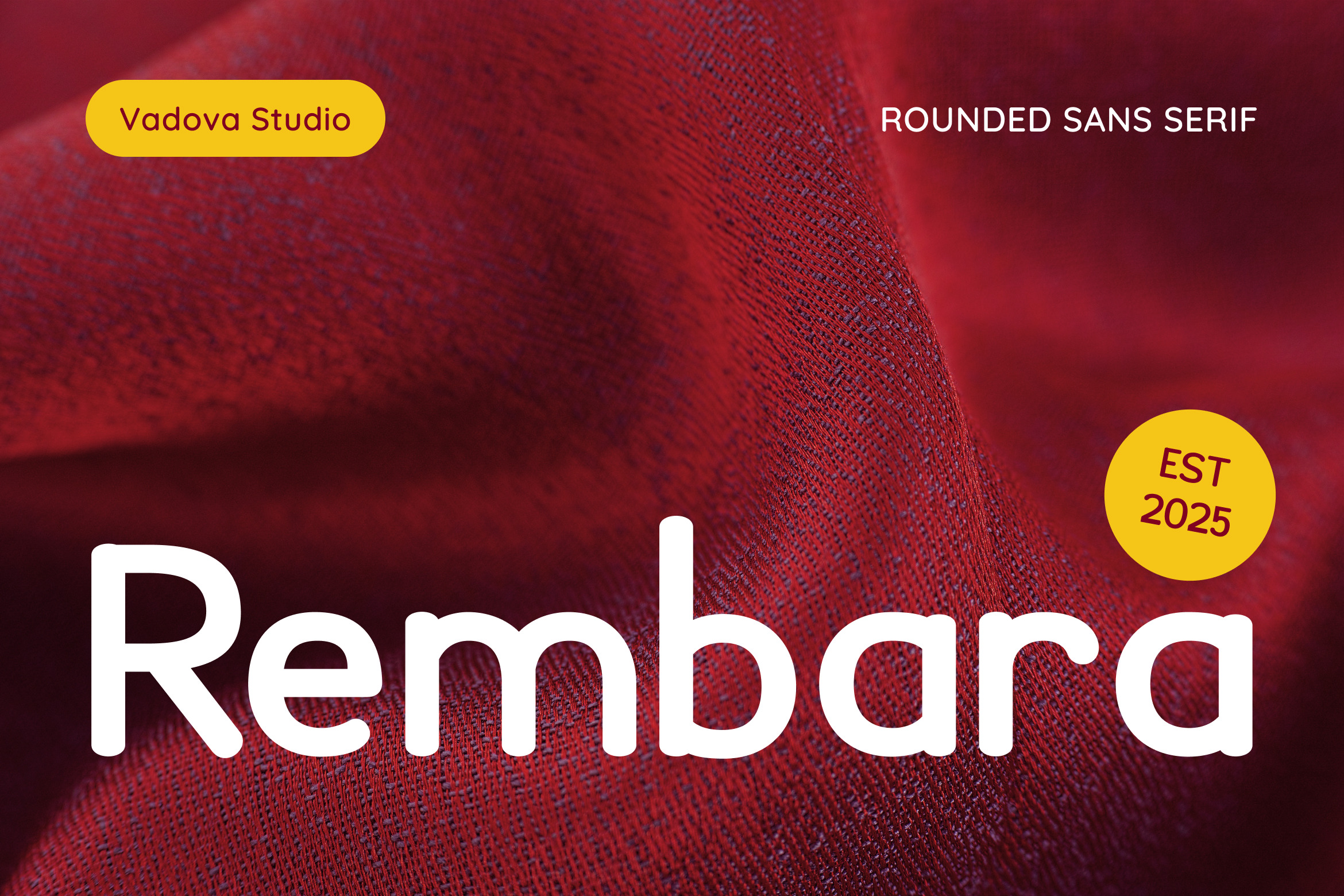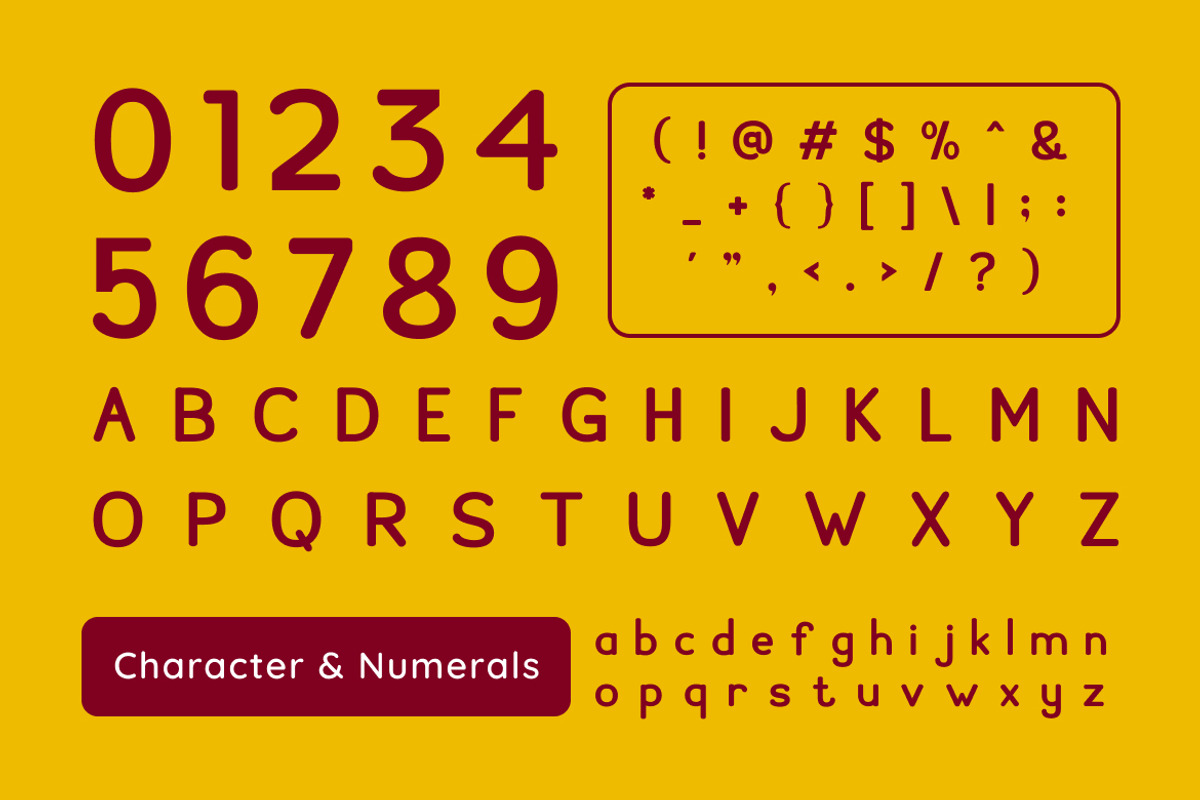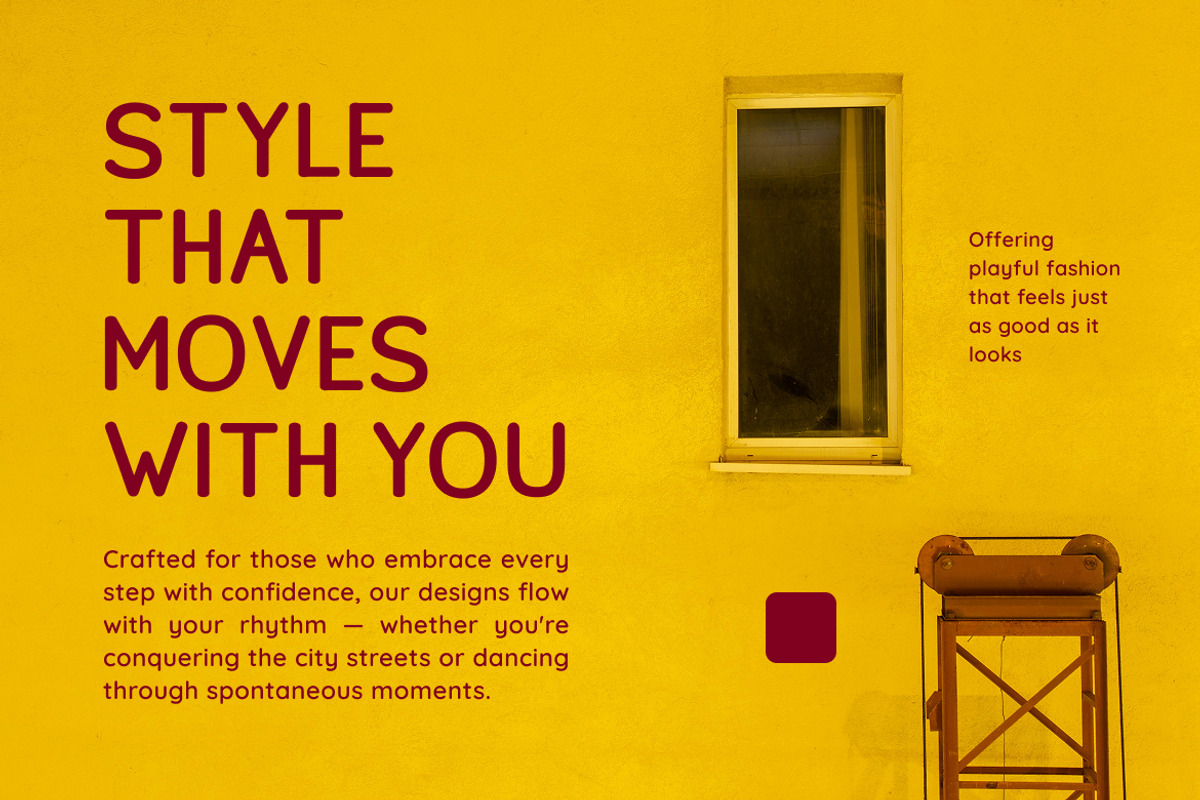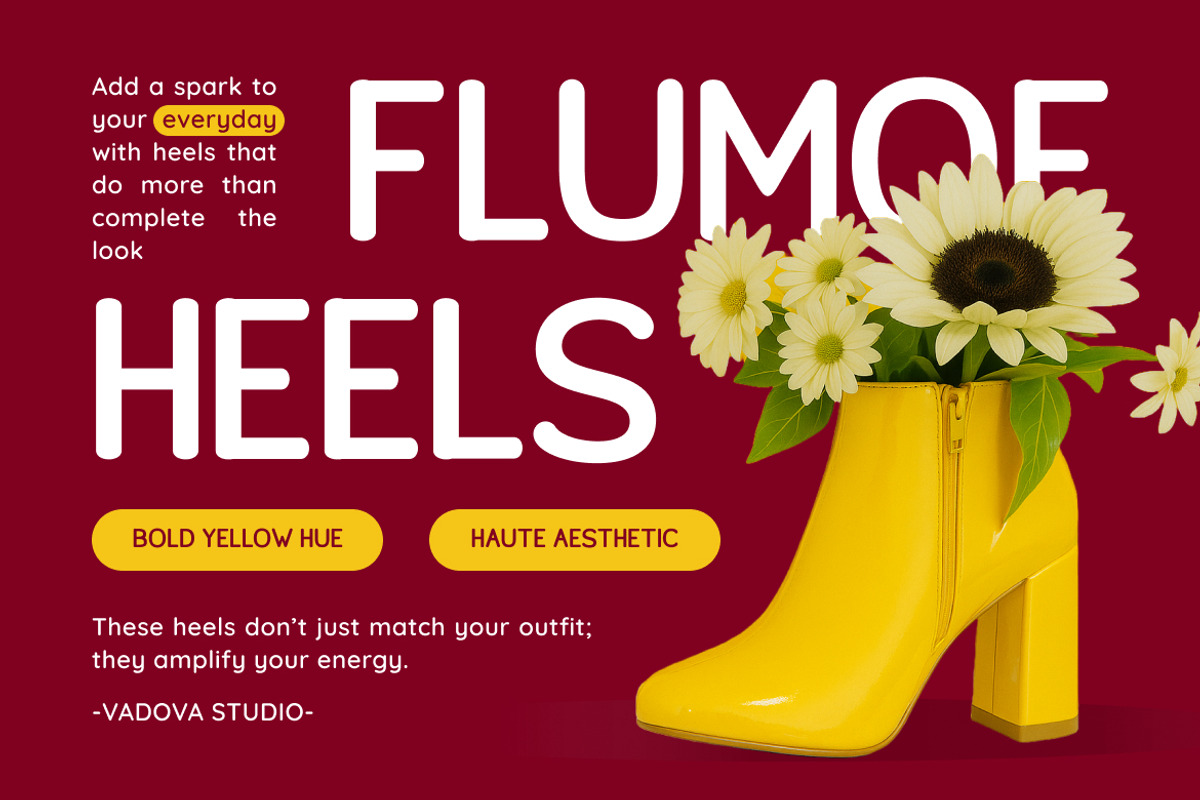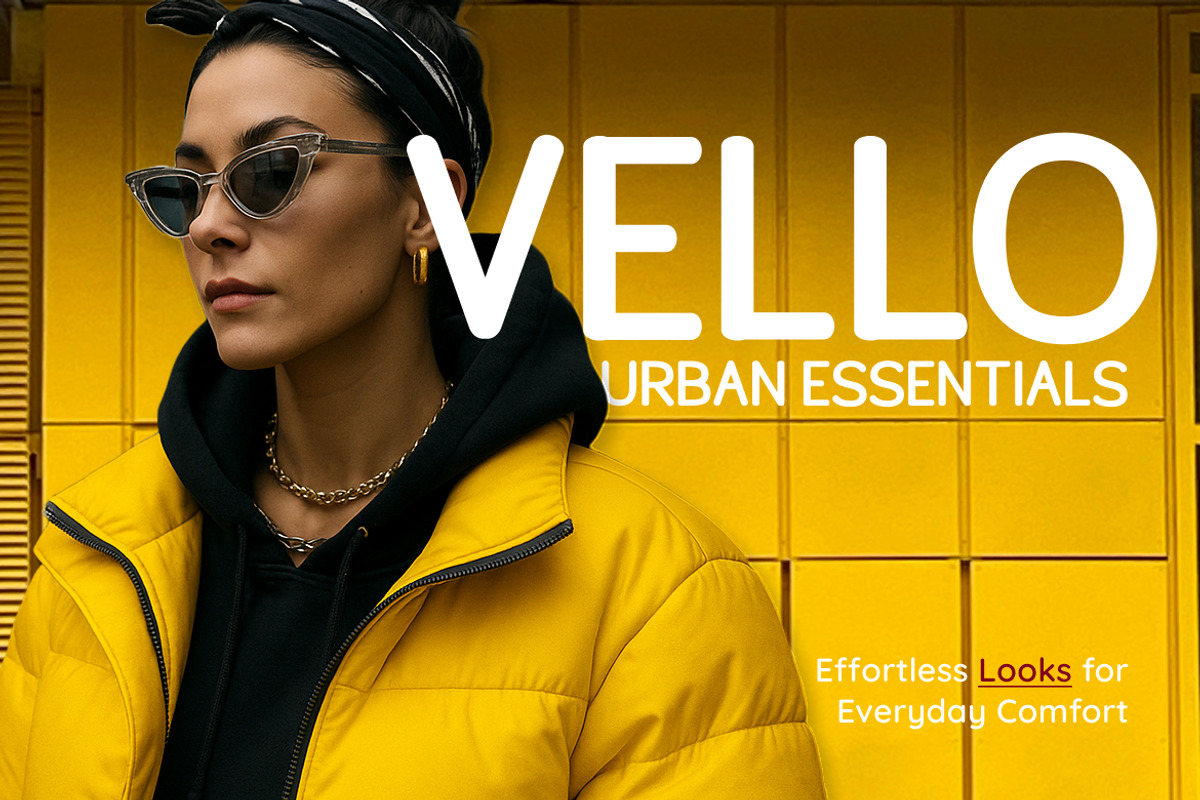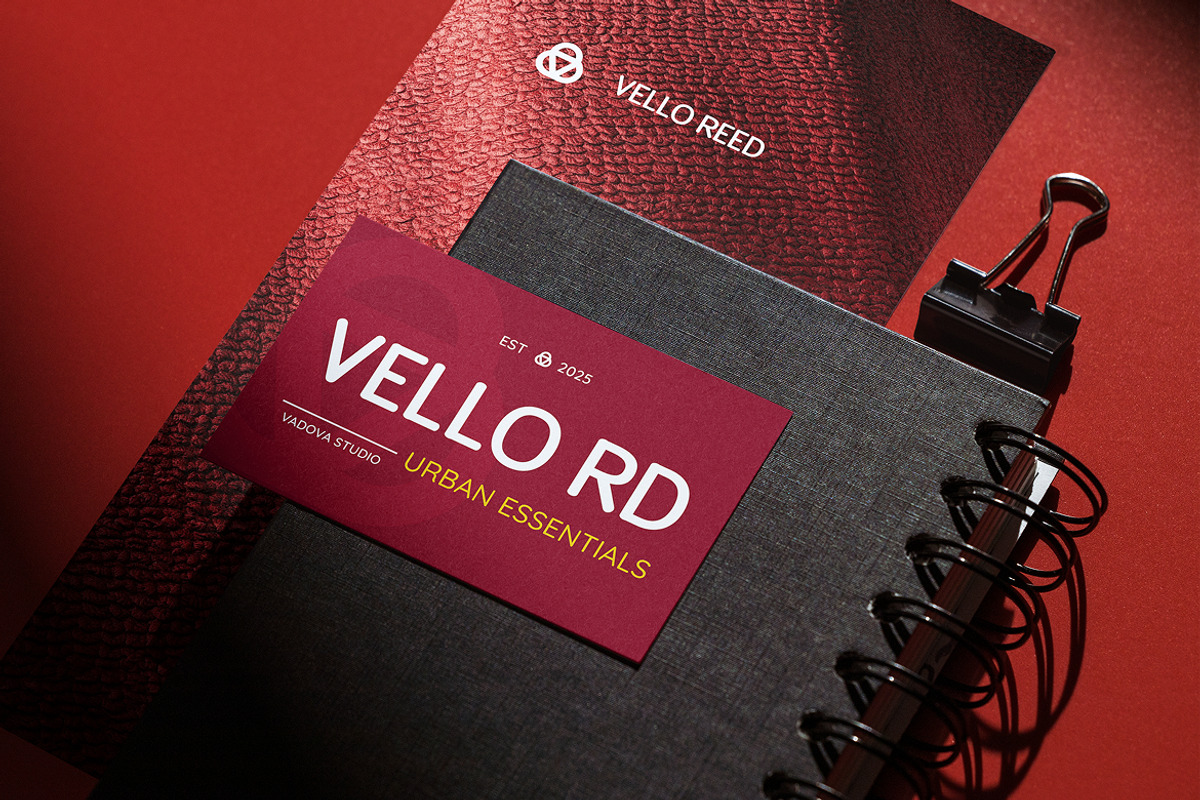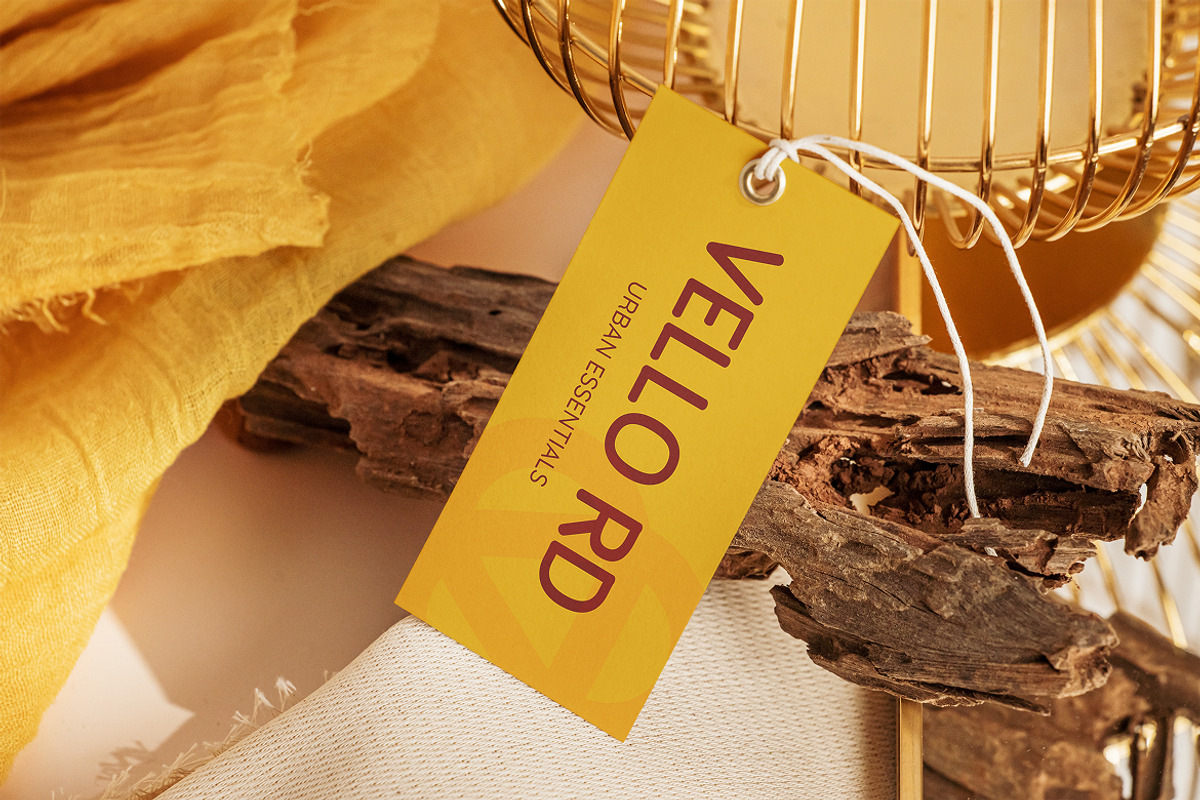
Rembara – Rounded Sans Serif Font
Rembara is a rounded sans serif font designed to bring warmth and clarity into modern typography. Its soft corners and clean structure create a friendly and approachable feel, perfect for brands that want to appear trustworthy, contemporary, and human-centered. The balanced proportions make it stand out in both digital and print use, while its smooth readability ensures versatility across multiple platforms.
This typeface radiates a playful yet professional vibe, fitting seamlessly into creative projects such as lifestyle branding, editorial layouts, and packaging design. Its rounded letterforms deliver a modern minimalism that feels fresh and polished, making it a strong choice for UI/UX design, mobile apps, and social media graphics.
Why Designers Love It:
Rounded, soft edges that make the font approachable and modern.
Balanced proportions for readability in large and small sizes.
Friendly yet professional style, versatile for both playful and corporate designs.
Works beautifully across branding, packaging, advertising, and editorial.
Uppercase & Lowercase Letters
Best Use Cases:
Logo & Branding Projects
Social Media Templates
Editorial Design & Magazines
Tech & Startup Presentations
Children’s Books & Educational Materials
Modern Advertising Campaigns